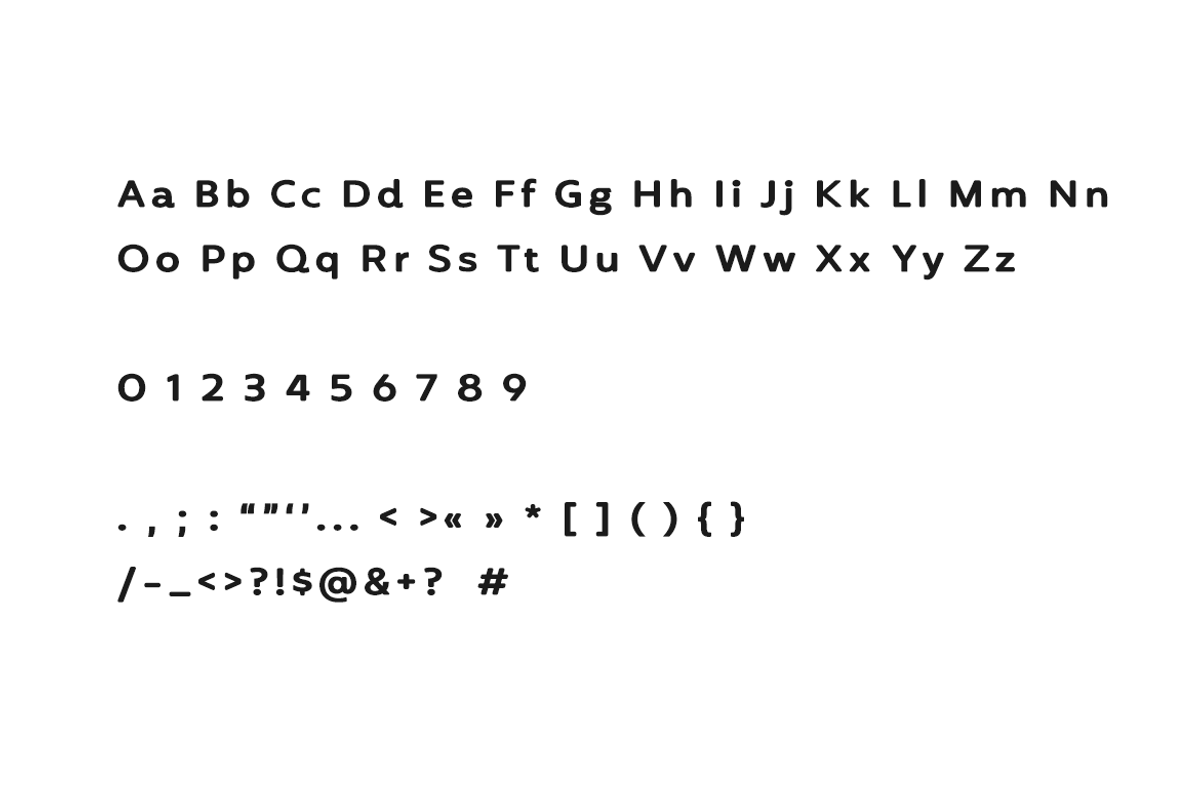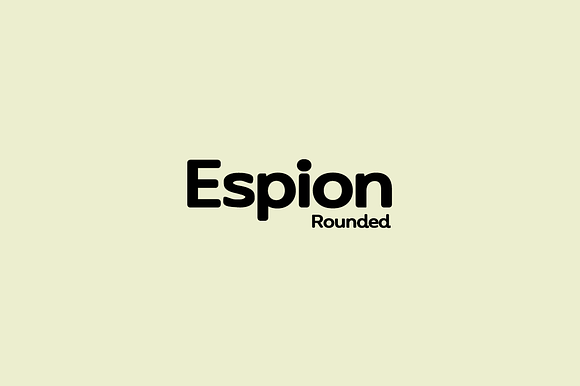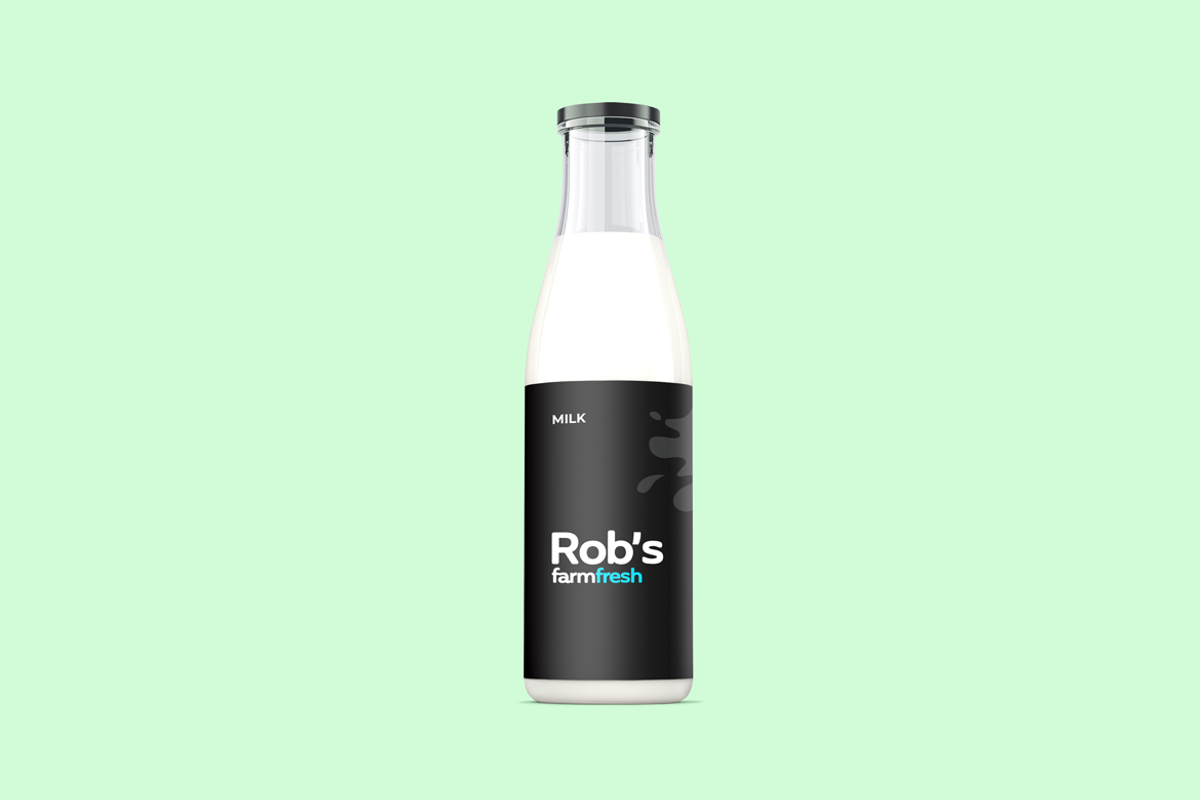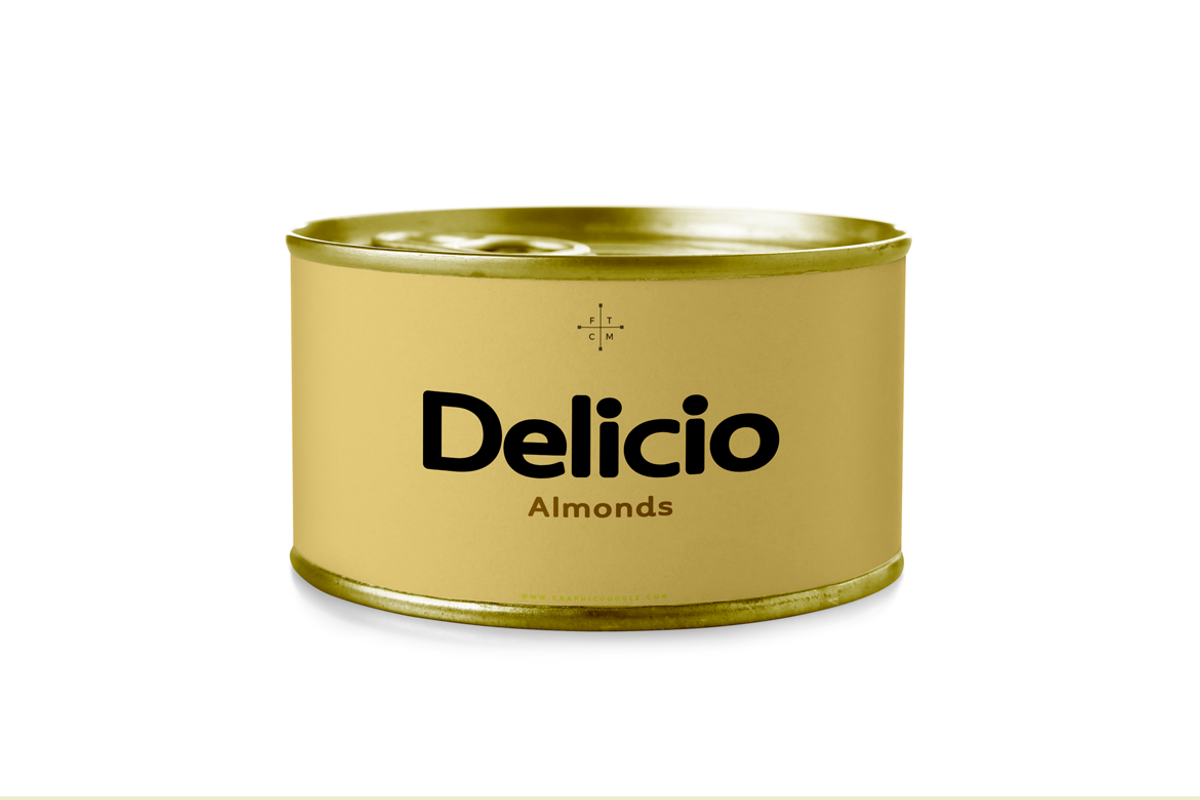
ESPION Rounded - Modern Typeface
This is rounded version of Espion Grotesk - a unique typeface for headlines, big text, branding, logotypes & display usage. This unique typeface is best for creating outstanding logos, promotional content and marketing graphics that can really grab attention from your visitors. Please see the examples shown above to get an idea about the capability of this typeface.